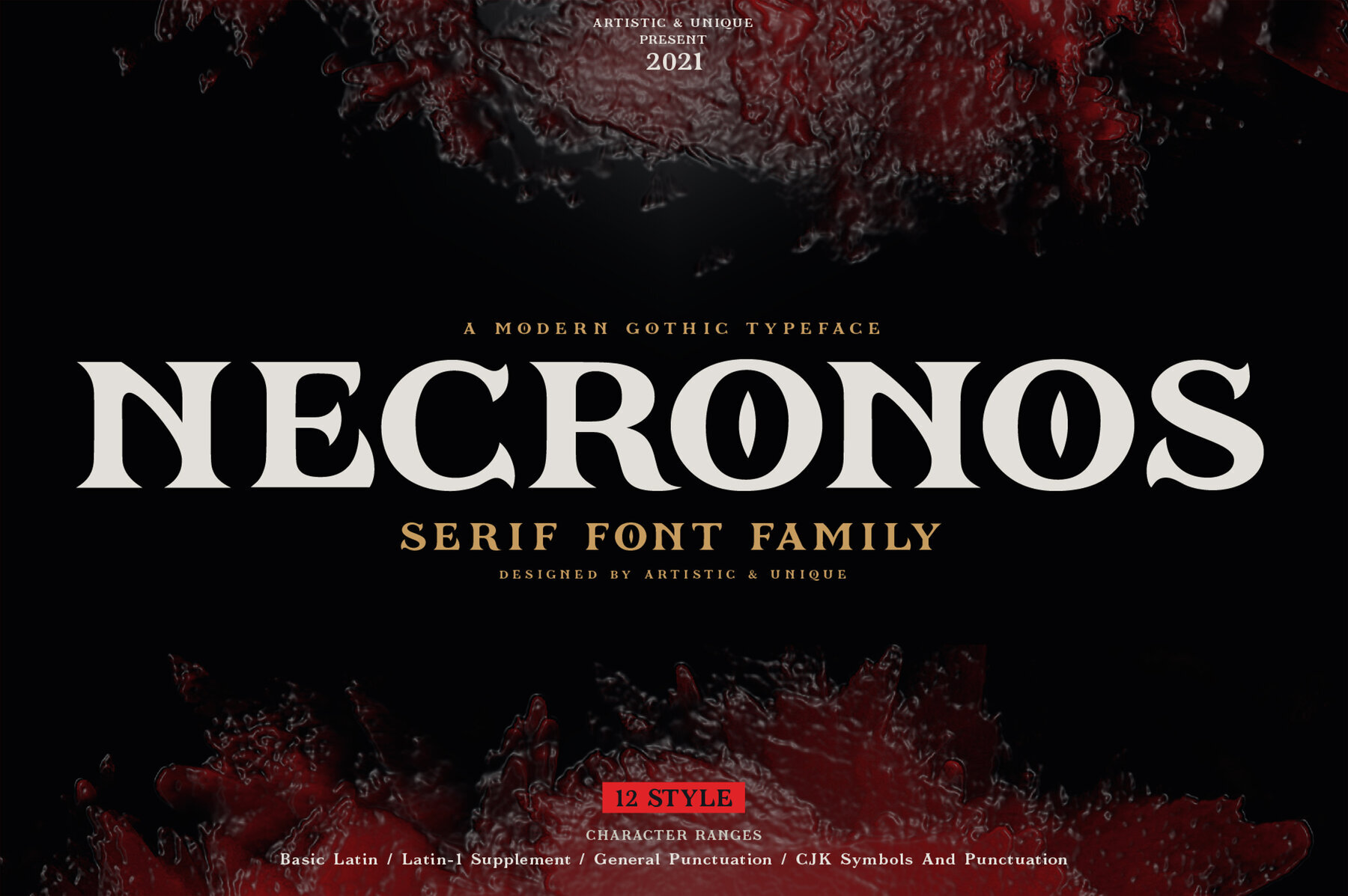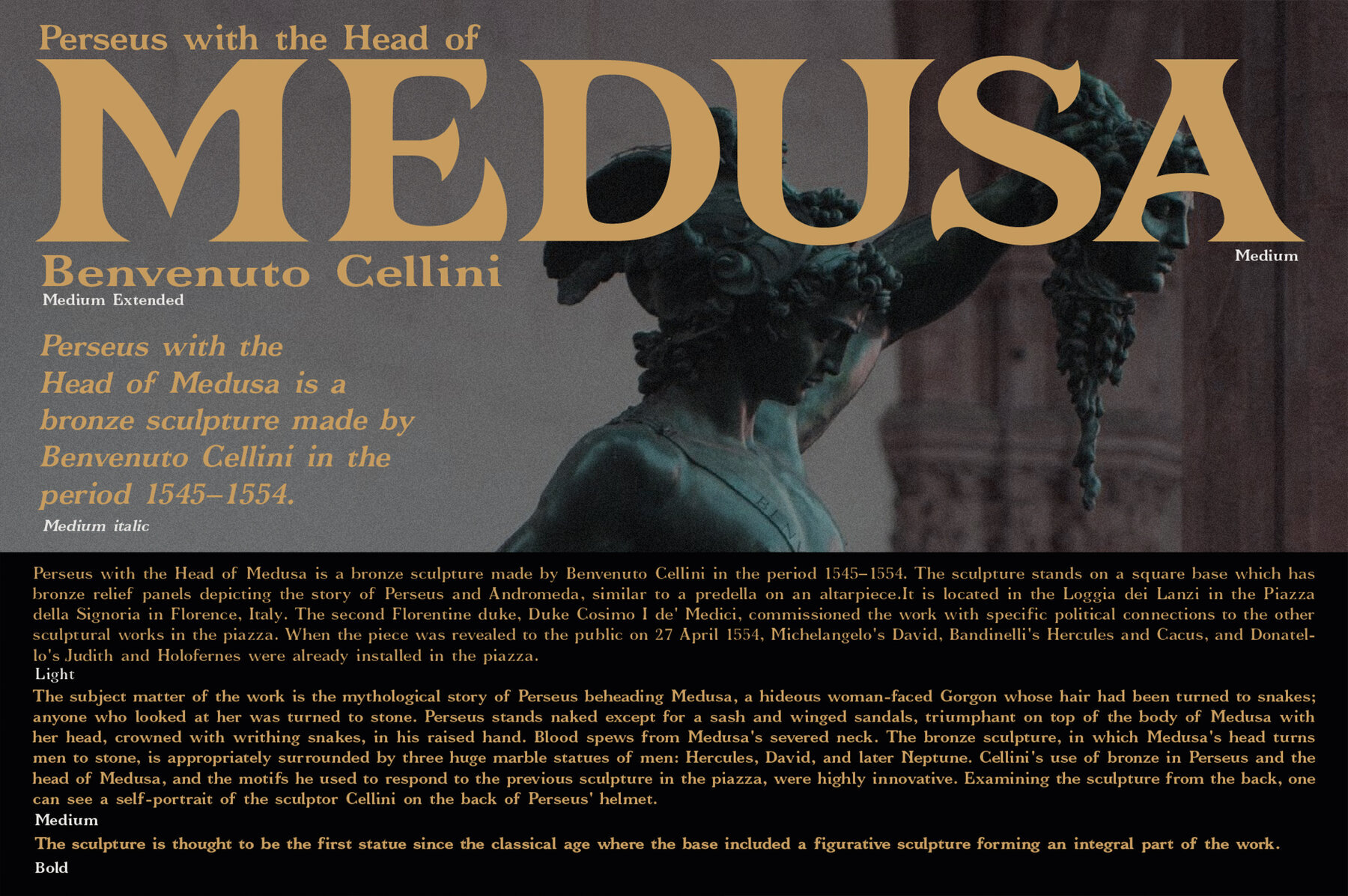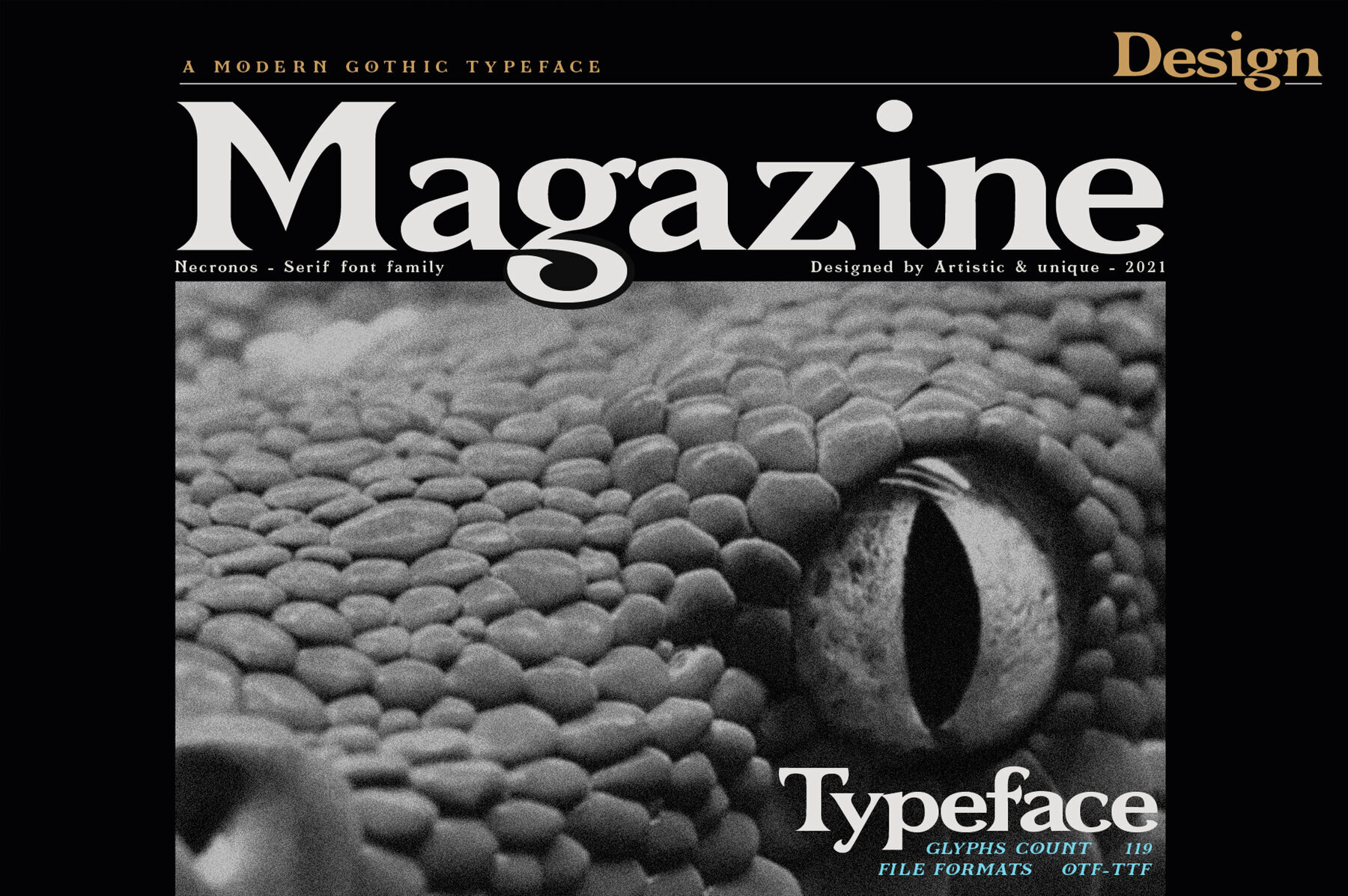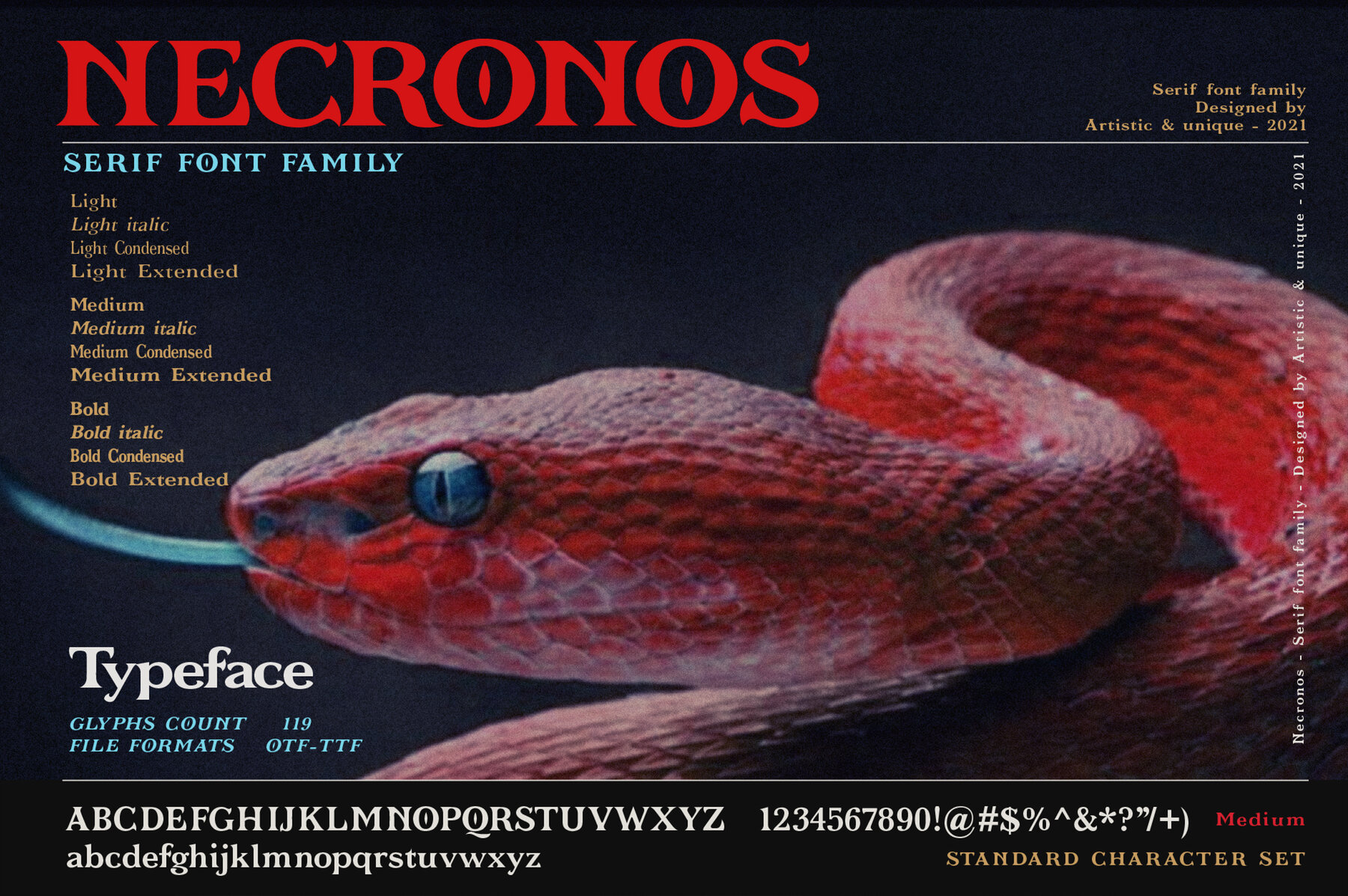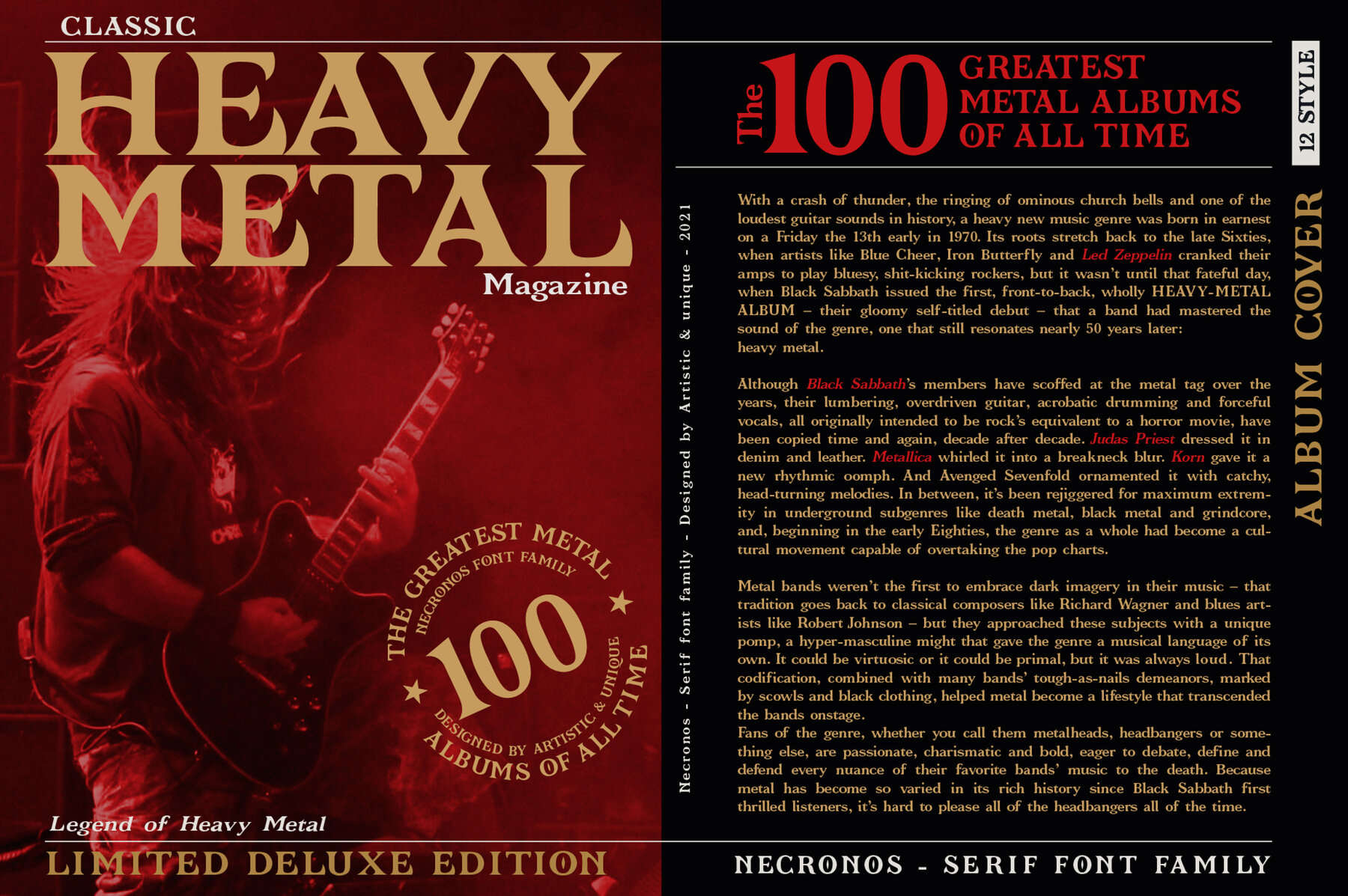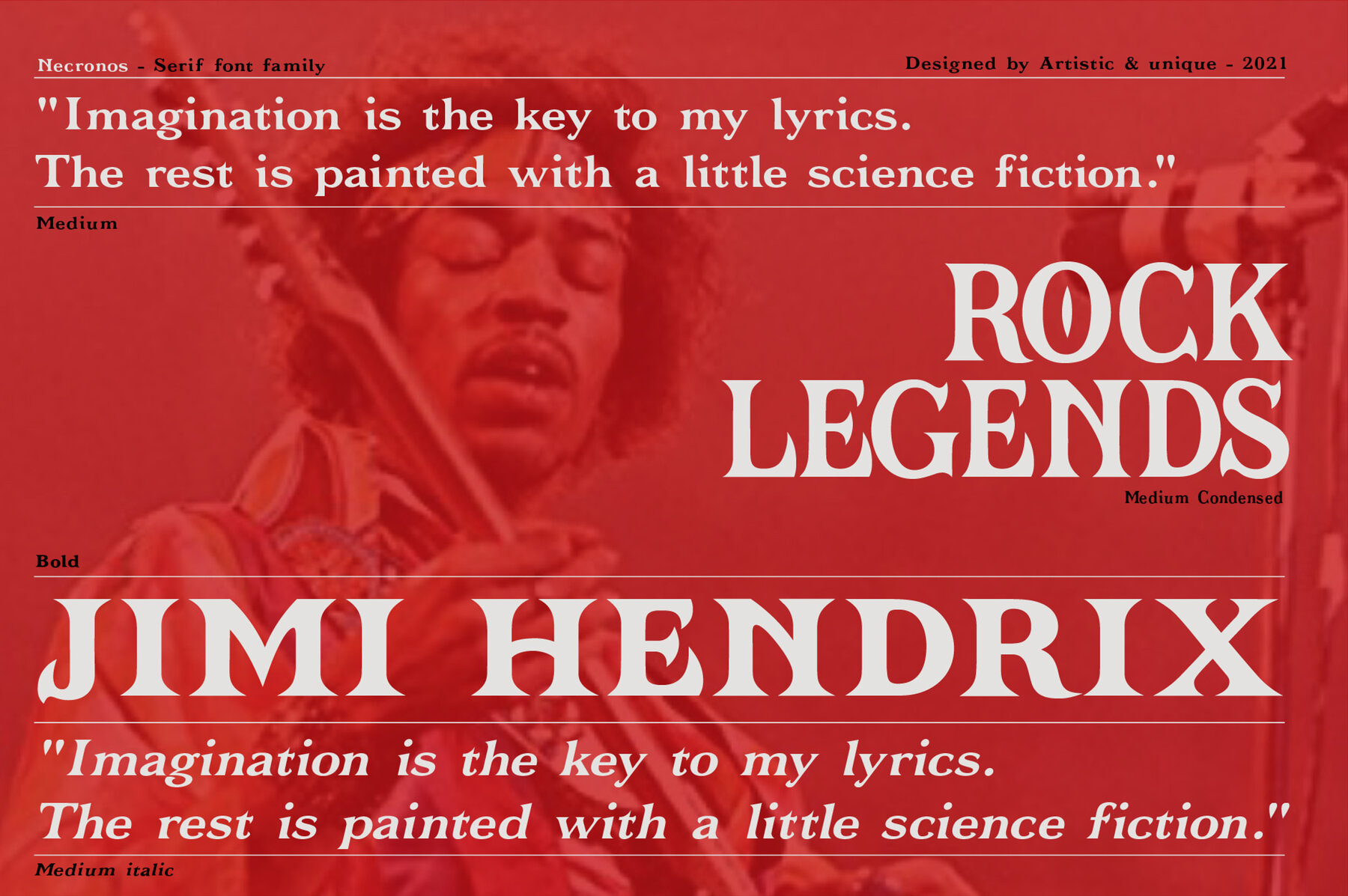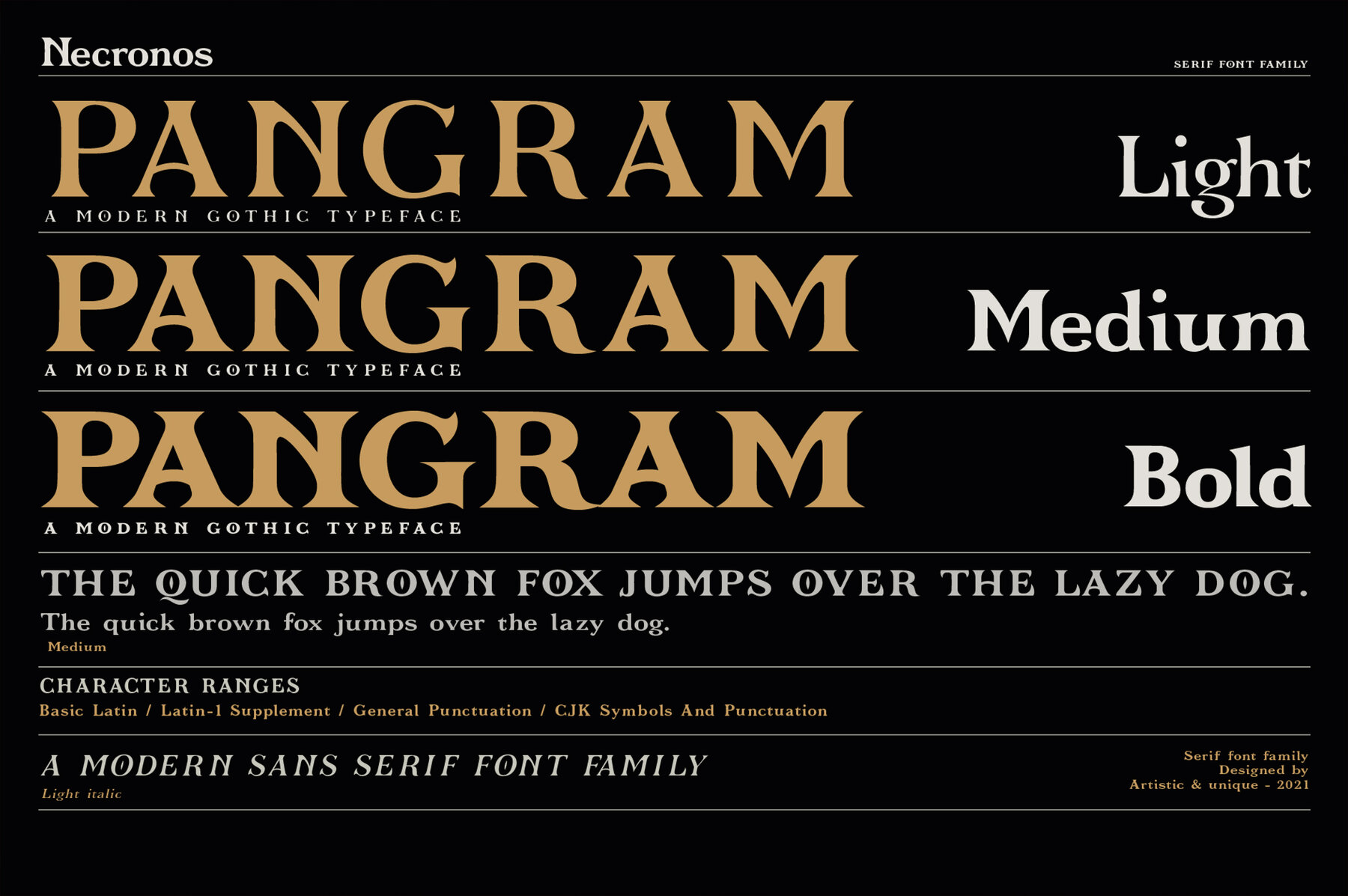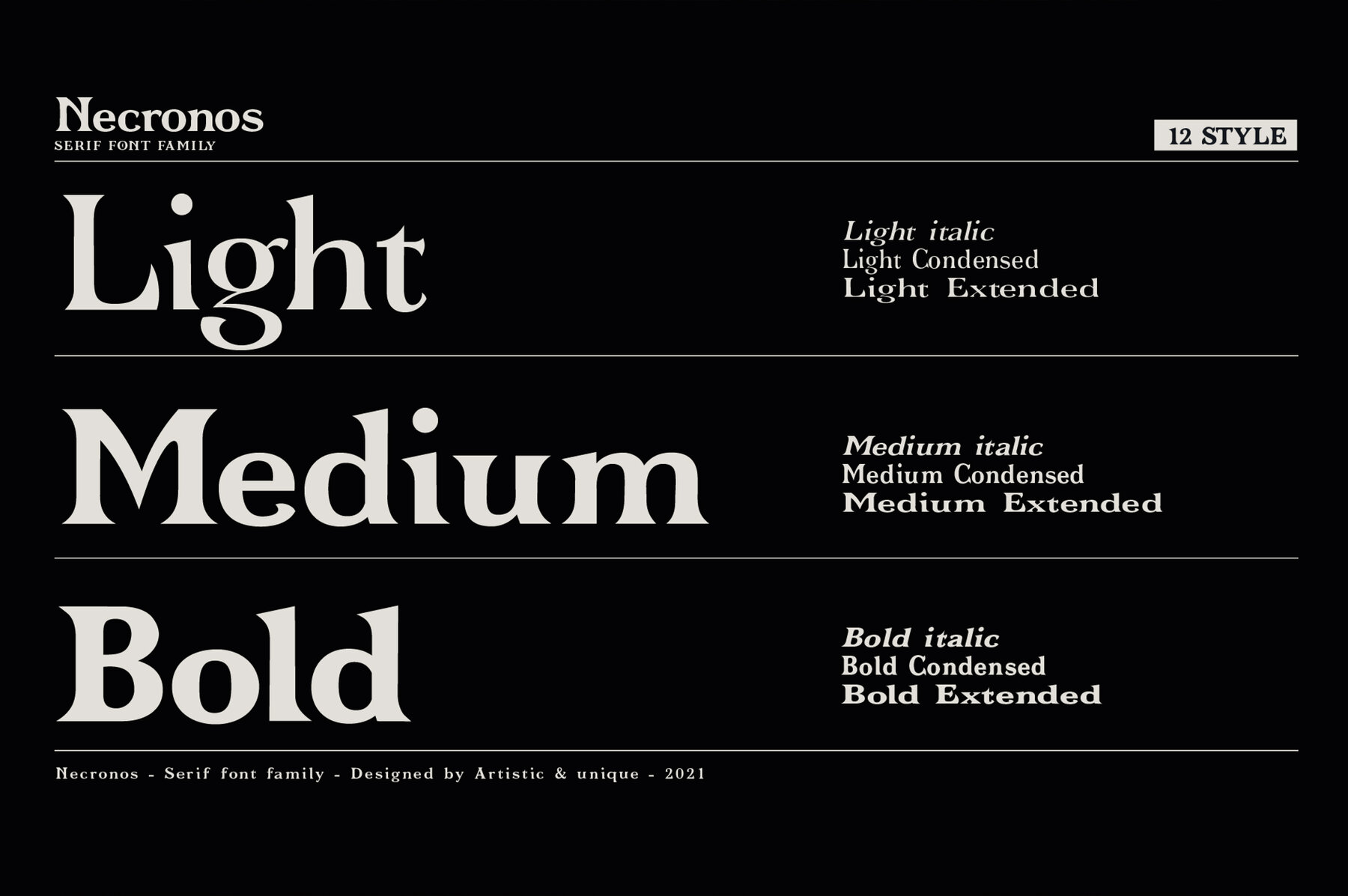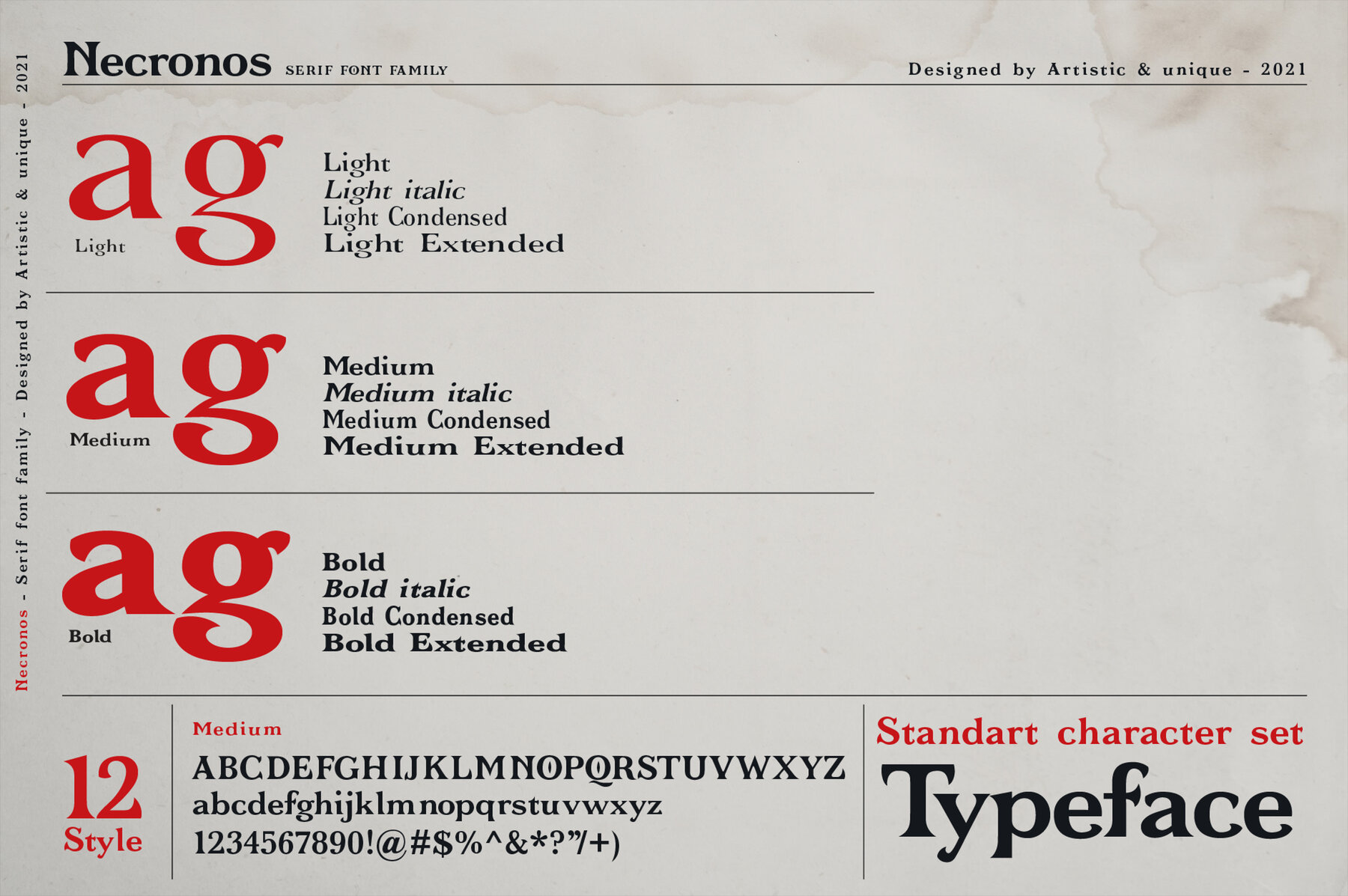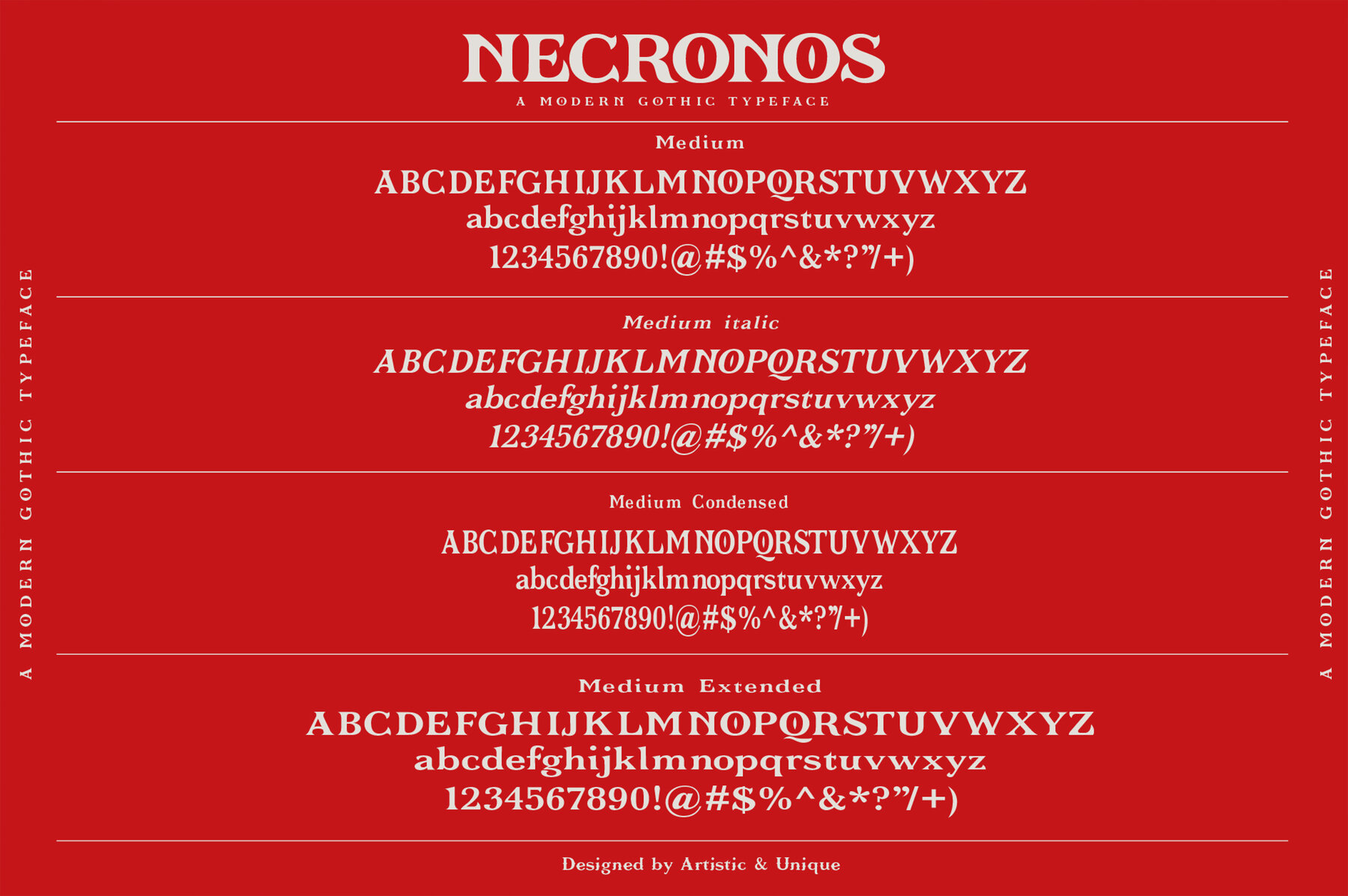
Necronos Font
The Necronos font family is ideal for creative projects with its gloomy and modern gothic stance. Necronos serif font is stylized with elegant soft turns that soften the sharp ends. Its structure fits both modern and classic creative projects. Offers rich solutions with alternative versions. Easily use the serif feature in various areas, like creating normal text and highlighting bold characters and titles. The Necronos font family is perfect for design ideas, allowing you to create unique designs.Necronos: Gothic Serif for Creative Projects
Sophisticated Design
Versatile Options
Wide Range of Applications
Perfect for Unique Designs